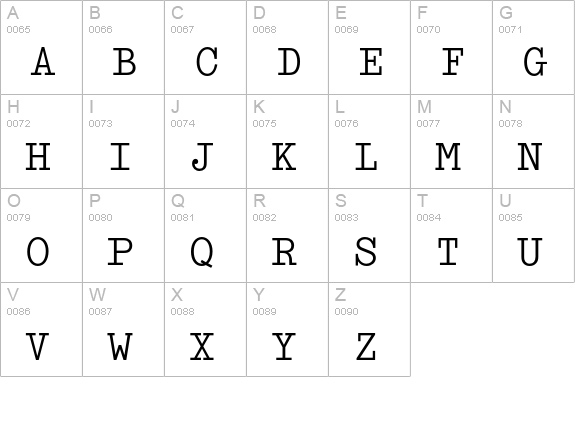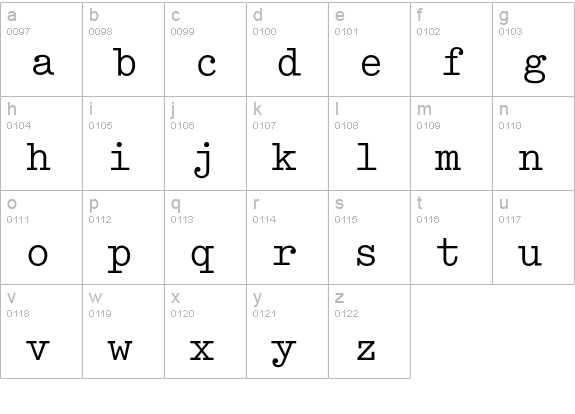
SchreibmaschineEF-Regular Font Details
SchreibmaschineEF-Regular is the standard, neutral variant in the SchreibmaschineEF typeface family \xE2\x80\x94 well suited to general body text, paragraphs, and standard typographic work.
SchreibmaschineEF-Regular font is a stunning display font that exudes a sense of classic elegance and vintage charm. With its meticulously crafted letterforms, this font captures the essence of traditional typewriters, making it perfect for projects that require a touch of nostalgia. This font features a balanced and harmonious design, with each character carefully crafted to ensure legibility and visual appeal. The bold and distinct strokes give the font a strong presence, making it ideal for headlines, titles, and logo designs that demand attention. One of the most remarkable aspects of SchreibmaschineEF-Regular font is that it is freely available to download at FontsMarket.com. This means that you can enjoy the beauty and versatility of this font without any cost. Whether you are a professional designer or a hobbyist, having access to high-quality fonts like SchreibmaschineEF-Regular font can greatly enhance your creative projects. The versatility of this font is truly remarkable. Its timeless appeal makes it suitable for a wide range of design applications, including branding, packaging, signage, and editorial design. Its bold and striking appearance also allows it to stand out in digital and print media, ensuring that your message is conveyed in a visually captivating manner. With its freely available download and stunning design, SchreibmaschineEF-Regular font is an invaluable addition to any designer's toolkit. Whether you are looking to add a touch of vintage charm to your designs or simply need a reliable and visually appealing font, SchreibmaschineEF-Regular font is sure to exceed your expectations.